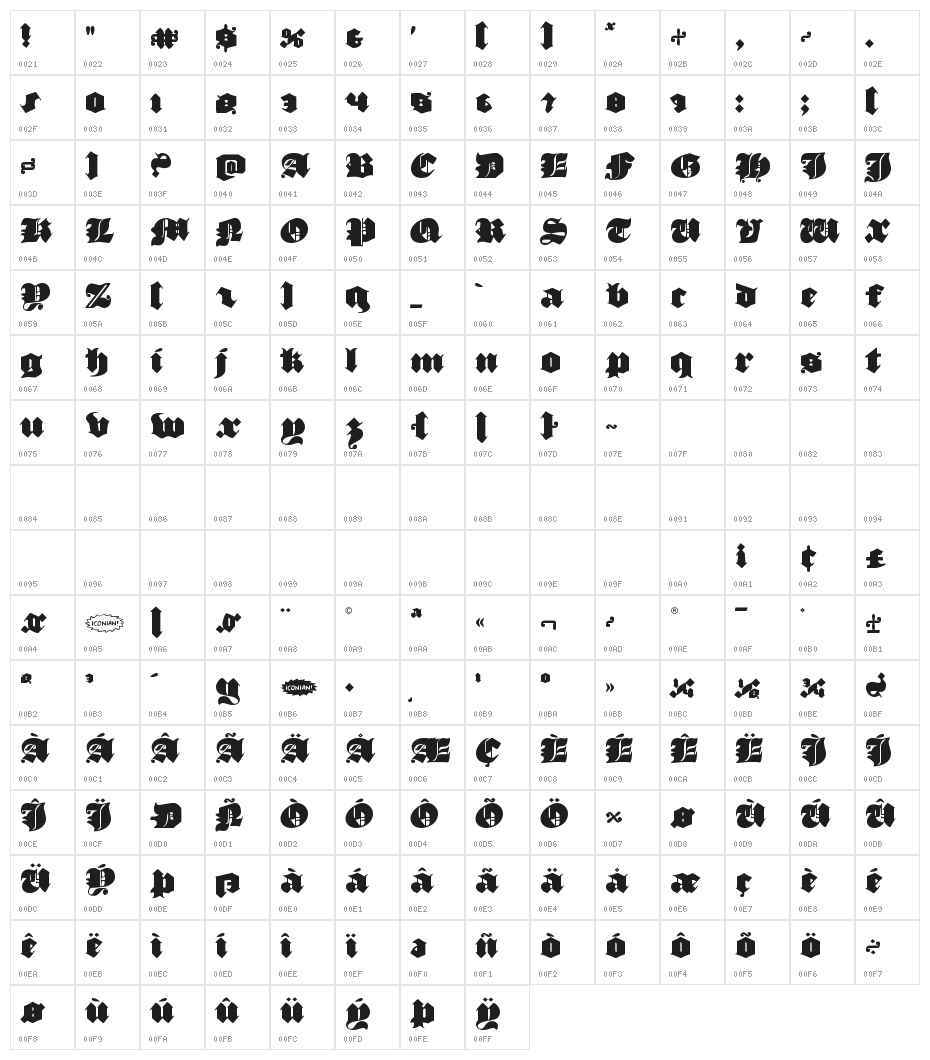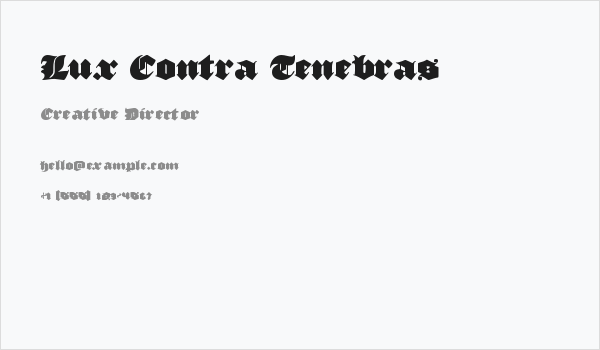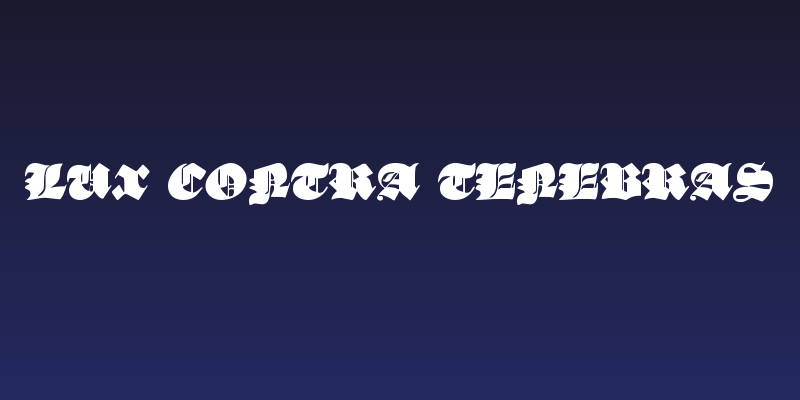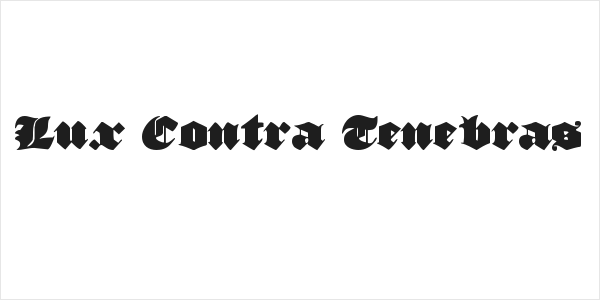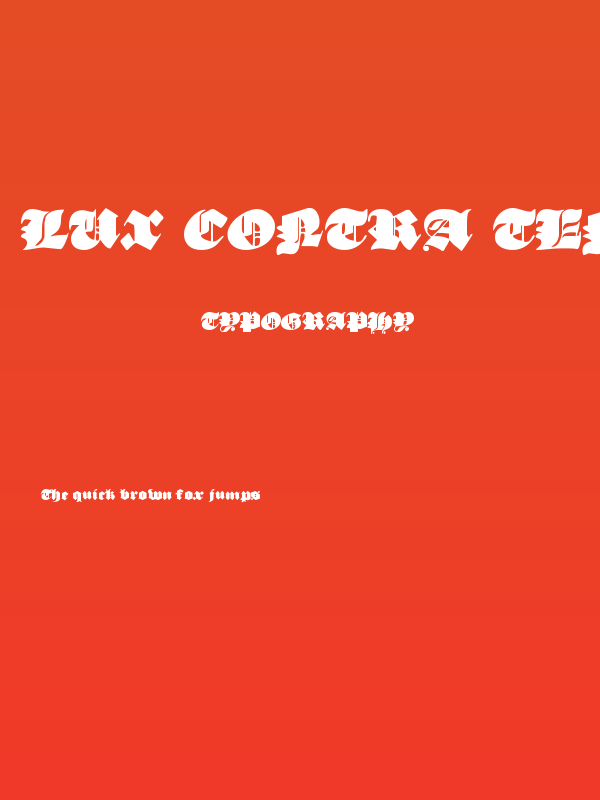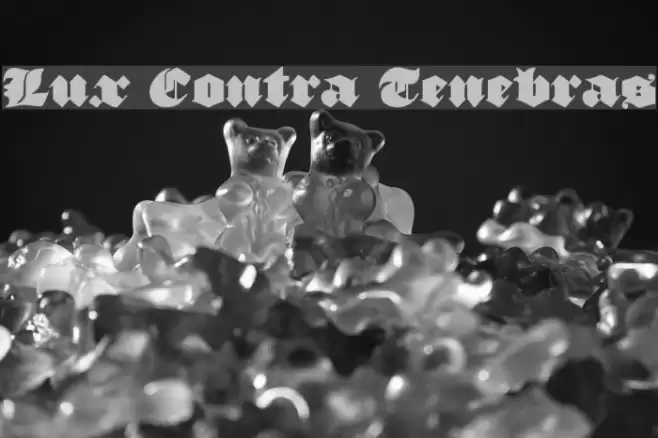
Lux Contra Tenebras Font
Lux Contra Tenebras Description
This font embodies a bold and dramatic style, reminiscent of traditional Gothic or Blackletter typefaces. The characters are intricately designed with sharp, angular lines and elaborate flourishes, giving it a medieval and ornate appearance. The uppercase letters are particularly striking, with strong vertical strokes and decorative elements that enhance their visual impact. The lowercase letters maintain the same level of detail, ensuring consistency throughout the typeface. Numbers and special characters are equally stylized, making this font suitable for creating a cohesive and visually compelling design.
| Overall Style | Vintage |
| Use Case | Headlines, Logos, Decorative text |
| Proposed Projects | Ideal for projects requiring a medieval or historical theme, such as book covers, posters, or branding for events like Renaissance fairs. |